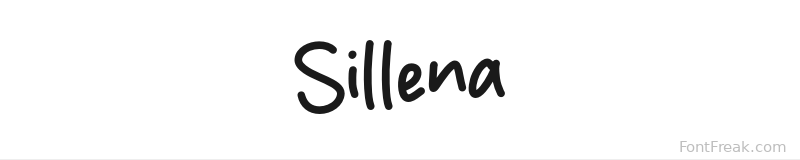
Sillena
Sillena, created by MJType, is an elegant handwritten font that embodies a unique blend of creativity and sophistication. As a freeware font, it provides an excellent opportunity for designers and content creators looking to enhance their projects without the constraints of licensing fees. The Sillena font features a fluid stroke weight and a moderate contrast, giving it a dynamic appearance that captivates the eye. The graceful curves and varied line thickness create a sense of movement, while the generous spacing between characters ensures readability, making it versatile for various applications.
This font is particularly well-suited for wedding invitations, where its romantic flair can beautifully convey heartfelt sentiments. Additionally, it shines in branding projects for small businesses, allowing for a personal touch that resonates with customers. The Sillena font is also ideal for restaurant menus, lending an artisanal quality that elevates the dining experience. Furthermore, it can be effectively used in social media graphics, enhancing posts with a stylish and approachable feel. Targeted primarily at graphic designers, small business owners, and content creators, Sillena offers an appealing option for those seeking to make a statement with their typography.
What sets the Sillena font apart is its ability to balance elegance with approachability. Its distinctive handwritten style invites engagement, making it perfect for projects that aim to create a personal connection with the audience. Whether used in print or digital formats, Sillena enhances visual storytelling while maintaining a professional aesthetic. For those interested in exploring this captivating typeface, a Sillena font free download is available, providing a fantastic resource for elevating any creative endeavor.